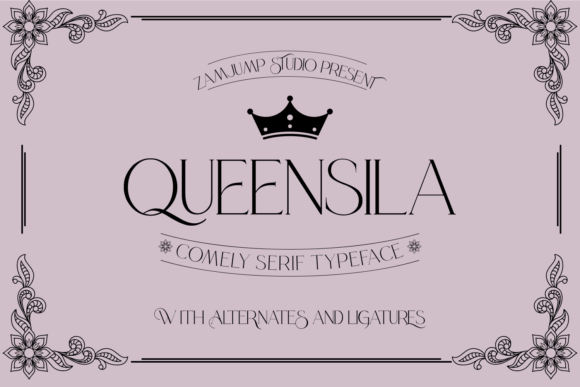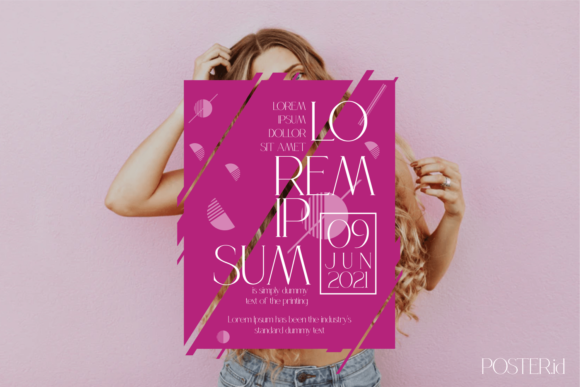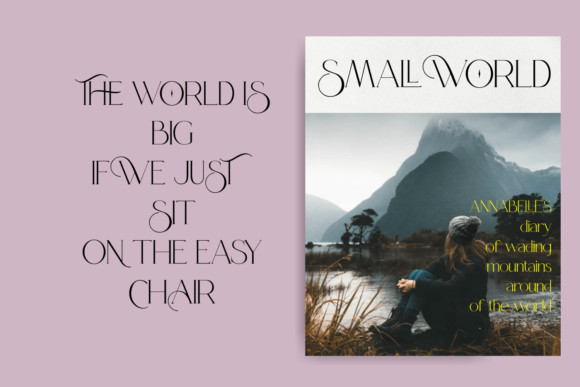
Queensila Font
Queensila is an elegant and delicate serif font. It has a clean, thin and smooth vibe and it will be a hit for any design that you want to add it to.